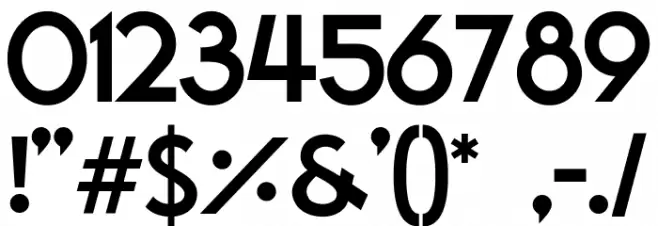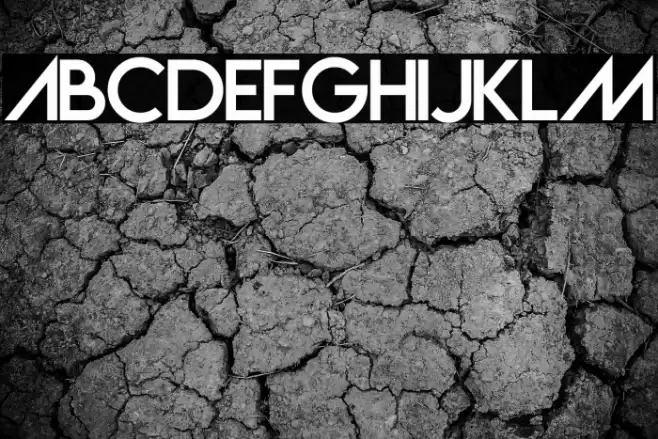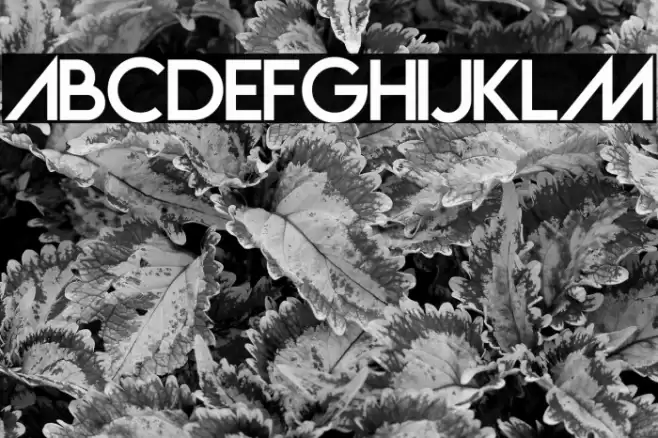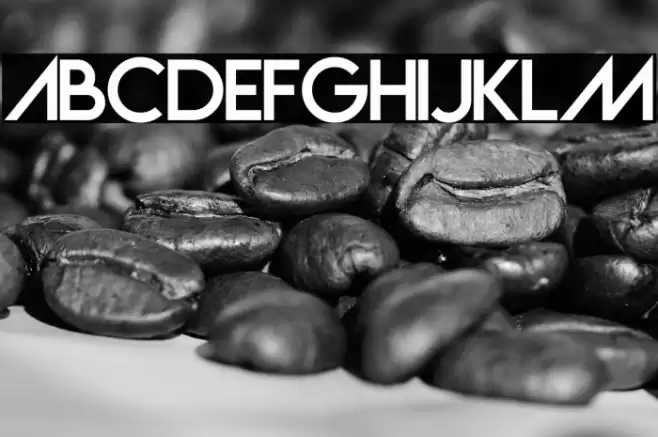
Vanilla Wave Font
Vanilla Wave Description
This font features a bold and geometric design with a modern flair. The characters are crafted with clean lines and sharp angles, creating a sense of precision and clarity. The uppercase letters exhibit a consistent height and width, while the lowercase letters maintain a similar geometric structure. The numerals are distinct and easy to read, matching the overall style of the alphabet. Special characters are designed to complement the boldness of the font, making it versatile for various uses. The font's uniformity and strong presence make it suitable for impactful headlines and branding projects.
| Proposed Projects | Ideal for branding, headlines, posters, and modern design projects. |